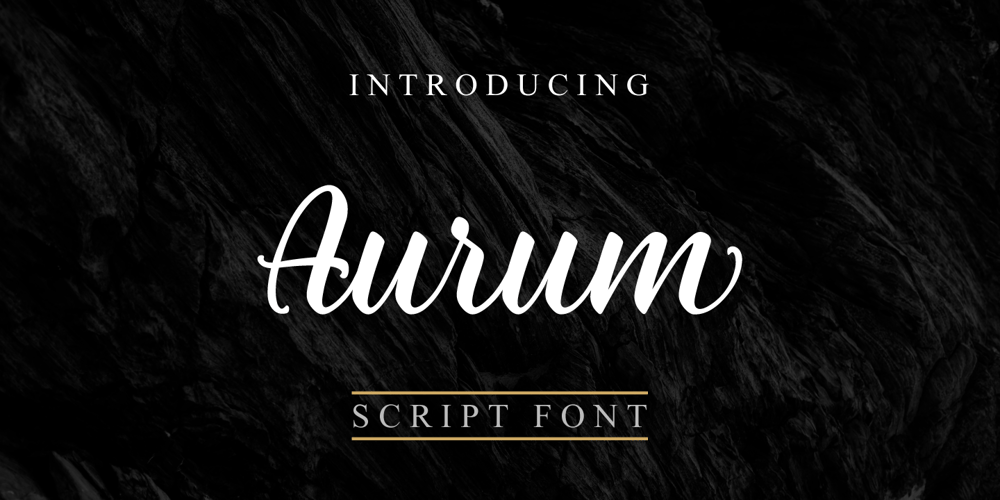
Aurum
Aurum font
Aurum Font Family was designed by Muhammad Akbar and published by Stasy Font. Aurum contains 1 styles and family package options. Aurum Script is a simple and luxurious script font. Combined with calligraphic styled handwritings will make your design project more powerful. Made for any professional project branding. It is the best for logos, branding projects, homeware designs, product packaging, mugs, posters, shopping bags, t-shirts, book covers, name cards, invitation cards, greeting cards, and all your other lovely projects. The alternative characters in this font were divided into several OpenType features such as Stylistic Alternates, Swash, and Titling Alternates. The OpenType features can be accessed by using OpenType program such as Adobe Illustrator, Adobe Photoshop, Adobe InDesign, and CorelDraw X6 – X7.Designers: Muhammad Akbar